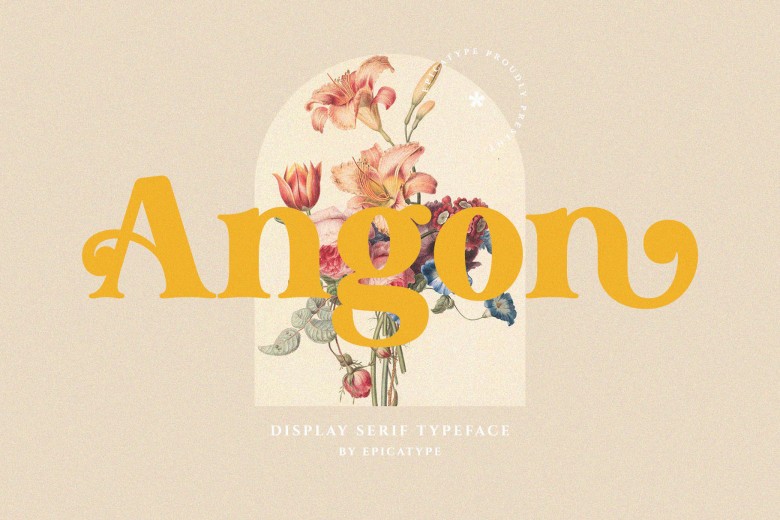
Angon Font
Angon is a Retro and Bold serif font. Angon works great for logos, magazines, social media posts branding projects, business cards, banners, or more. This font is PUA encoded which means you can access all of the glyphs and swashes with ease!.
Angon Serif Font